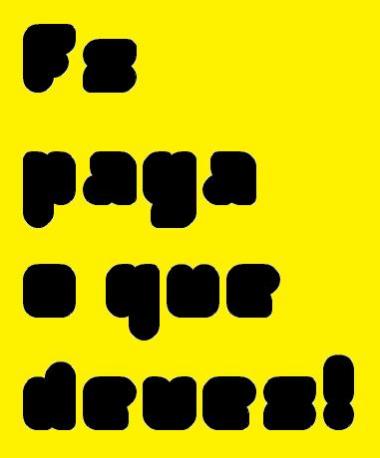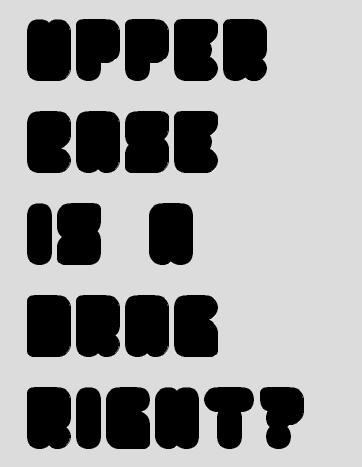
Lump
inspired by:
Ice Cream
i KNOW THERE ARE PROFESSIONAL FONTS LOOKING LIKE THIS (i EVEN BOUGHT SOME) BUT i TOTALLY IN YOURS; i REALLY LIKE THIS STYLE AND YOURS IS A BEAUTY. gOOD wORK !
And after all your updatings it is even become better than the professional ones I bought. Thanx for sharing.